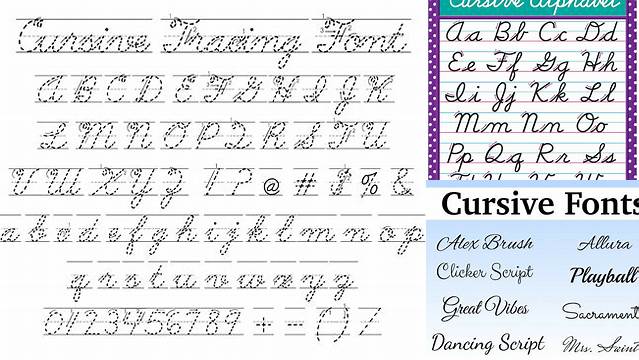
Free Cursive Fonts For Teachers: Boost Your Classroom
Hey there, educators! Are you looking to jazz up your teaching materials and make handwriting lessons a breeze? Well, you've come to the right place! In this article, we'll dive deep into the wonderful world of cursive handwriting fonts specifically designed for teachers. I'll also be sharing some fantastic free cursive fonts that you can use in your classroom. Let's get started and make your lesson plans pop!
The Importance of Cursive Handwriting Fonts for Teachers
First things first, why should you care about cursive handwriting fonts? Well, think about it: as teachers, you're the architects of young minds. You're not just teaching subjects; you're shaping their understanding and sparking their creativity. The fonts you use, whether in worksheets, presentations, or handouts, are visual tools that either help or hinder this process. Cursive handwriting fonts offer a unique advantage. For starters, they help students connect the dots between the letters they learn and the way those letters connect when they write. This is especially important in an era where keyboards often overshadow penmanship. Imagine the joy of seeing a child's eyes light up as they connect the dots, realizing that the loopy characters they've been learning form words and sentences. Using cursive fonts provides a visual cue that reinforces the connection between writing and reading. Cursive fonts also assist in the improvement of fine motor skills by emphasizing the flow and rhythm of connected letters. This will assist children as they progress through their lessons and begin to learn how to improve their skills.
Furthermore, using appropriate cursive handwriting fonts gives your teaching materials a professional and engaging look. A well-chosen font can capture students' attention, make your content more appealing, and make learning more fun. Think of it as the icing on the cake: it makes the whole experience more enjoyable. A visually pleasing worksheet is much more likely to capture a student's attention than a plain one, and that is especially true for younger students. The fonts you choose give your learning materials a specific and individualized feel. This can be used to make your lessons more unique and memorable. You can show a professional side to your teaching by choosing appropriate fonts. Also, using the right cursive handwriting fonts could be seen as a small way to honor a disappearing art. Writing by hand, especially in cursive, is becoming less and less common. By using these fonts in the classroom, you're subtly reminding students of the beauty and elegance of handwritten language. This could encourage a greater appreciation for the written word and all of its possibilities. In a world dominated by digital texts, choosing cursive fonts can serve as a bridge between the traditions of the past and the technologies of the future.
Top Free Cursive Handwriting Fonts for Teachers
Now for the exciting part: let's explore some of the best free cursive handwriting fonts available to teachers. There are tons of awesome options, but here are a few of my top picks, categorized to help you choose the best fit for your needs. All these fonts are easily downloadable and can be used in most word processing and design programs.
For a Classic Look:
Learning Curve Pro
: This is a really popular choice, and for a good reason! It's clean, easy to read, and perfect for introducing young learners to cursive. The letters are clear and distinct, so they're great for beginners.Learning Curve Pro
is a very easy font to use and has a look that is familiar to most children. It is a safe bet and a great choice if you are looking for a professional and clean cursive font. The way it is designed makes it very easy to use for both teachers and students. It's a super versatile font that works well for worksheets, posters, and even digital presentations. It will allow the teacher to focus on the lessons and not have to worry if the students can read the words.KG Primary Dots
: This font is a playful option that is great for engaging younger students. It’s a dotted font, so kids can trace over the letters, making it an interactive and fun way to practice cursive. The visual aid of the dots helps children with letter formation and keeps them engaged in the learning process.KG Primary Dots
is a fantastic way to combine learning with fun. You can use this font to make the learning process both easier and more fun. This is one of the best ways to help children get the most out of the material. This can be used in creative activities to assist the students with learning the cursive alphabet. The best way to remember the cursive writing style is to practice it frequently.
For a More Modern Vibe:
Architects Daughter
: This font has a lovely, slightly quirky style that can make your materials stand out. It's still readable, but it has a more unique look that appeals to older students and those looking for something a little less traditional.Architects Daughter
is the way to go if you want a more creative and fun style. This font could also be a good choice for a more advanced lesson. The unique style adds a touch of flair to any educational content. It is super fun to use and will help make the lessons more memorable. If you are looking for a more engaging font,Architects Daughter
is the perfect choice.Caveat
: This font offers a balance of readability and style. It's perfect for a wide range of uses, from headings to body text, and can be a great choice for creating a cohesive look in your classroom materials. The font provides a great and well-rounded look that is perfect for almost any type of lesson. It also has a more stylish look that is perfect for older students.Caveat
is versatile and adds a professional look to any lesson or worksheet. It is easy to read and looks good in any educational material.
For Handwriting Practice:
Coming Soon
: This is a simple, easy-to-read cursive font that's great for handwriting practice sheets. Its clean lines make it easy for students to follow the letter formation. This font is very easy to use and will assist the students with practice. It allows the students to have an example to copy, which will help improve the students’ handwriting. The simple style keeps the focus on letter formation.Coming Soon
Conclusion: Embrace the Beauty of Cursive!
So there you have it, friends! Cursive handwriting fonts are more than just a visual element; they're a valuable tool for teachers to engage students, reinforce handwriting skills, and make learning fun. By incorporating these free resources into your classroom, you can create a dynamic learning environment that fosters creativity and a love of the written word. So go ahead, explore those fonts, experiment with different styles, and make your teaching materials shine! Happy teaching!